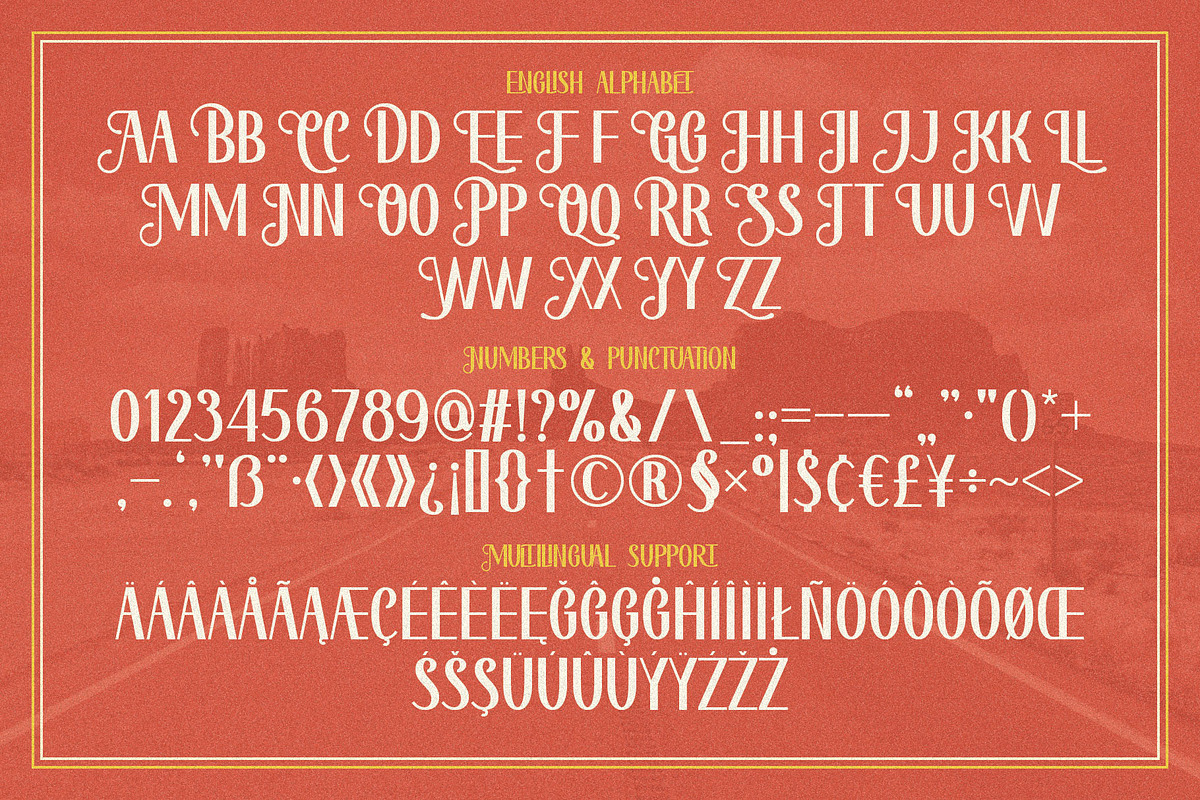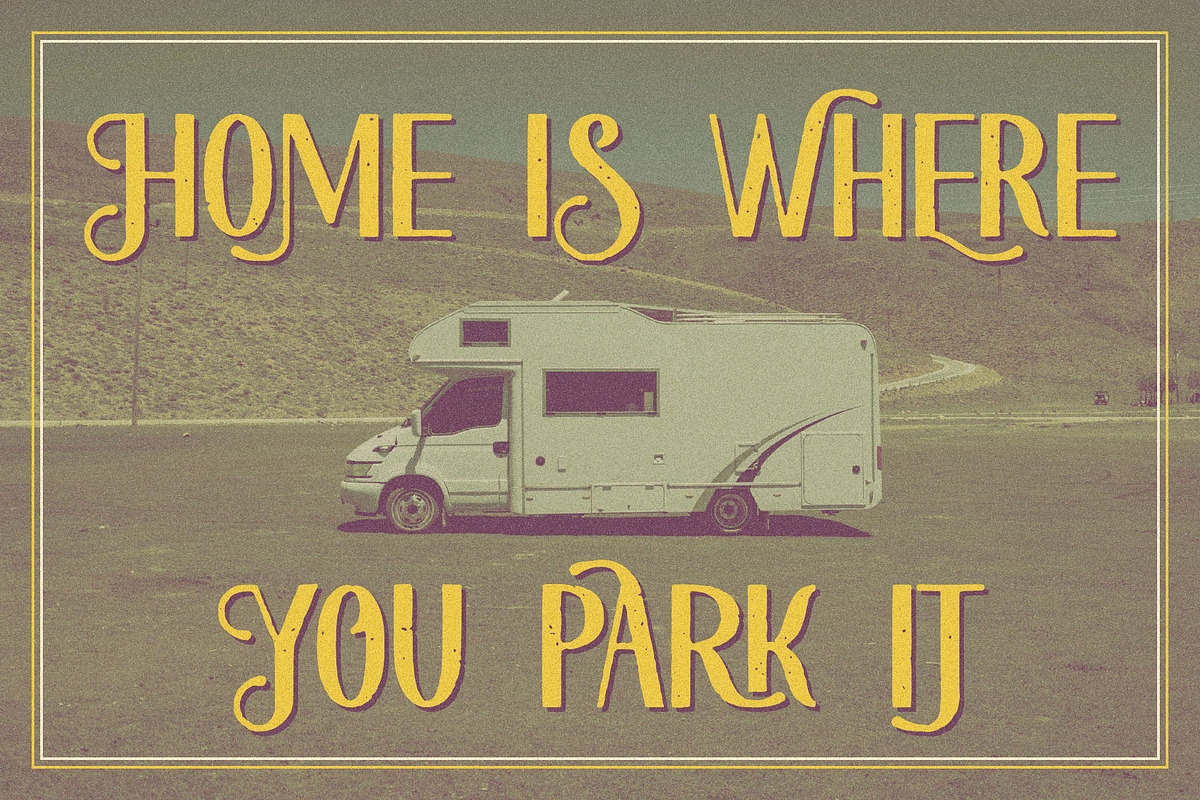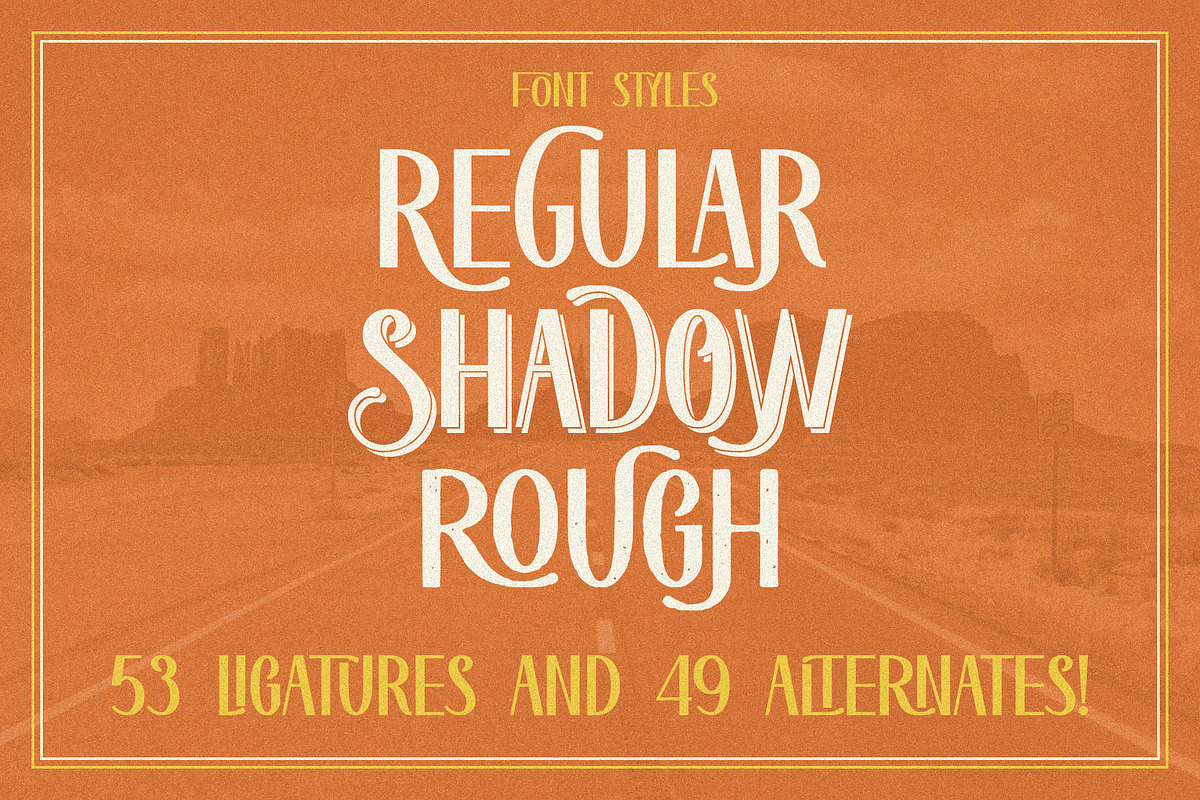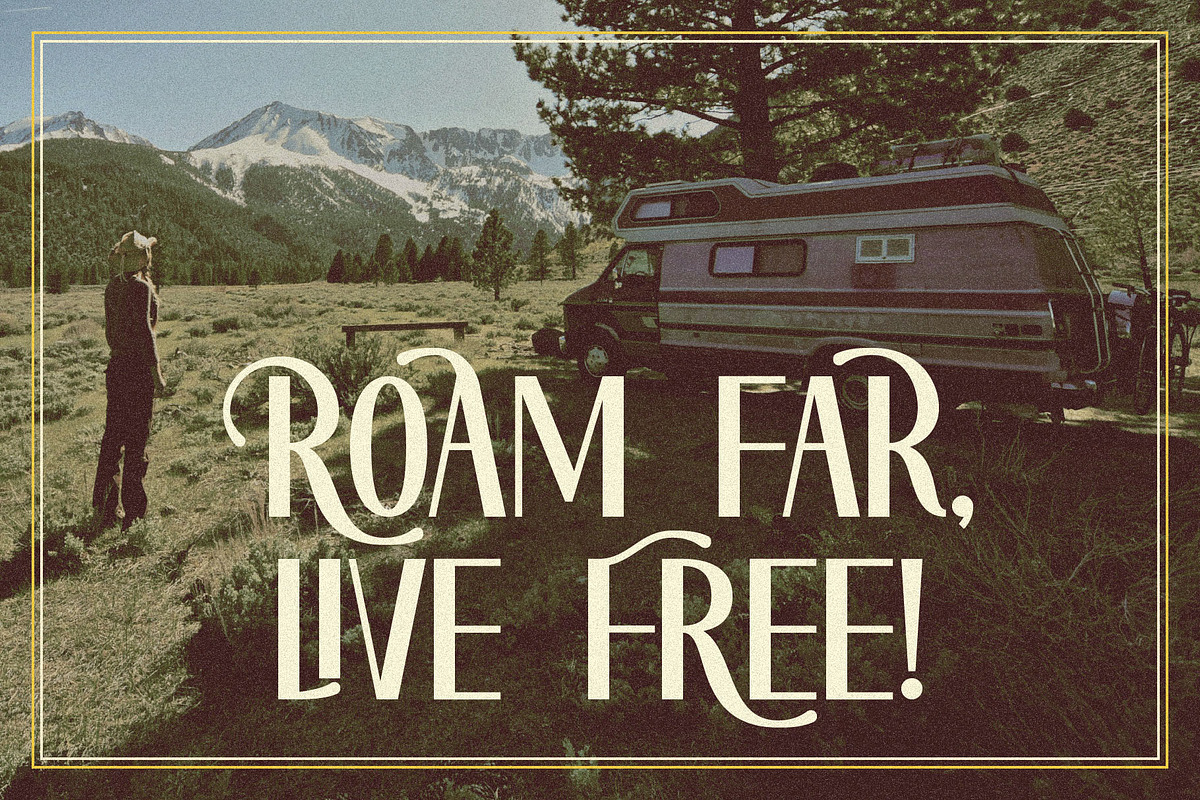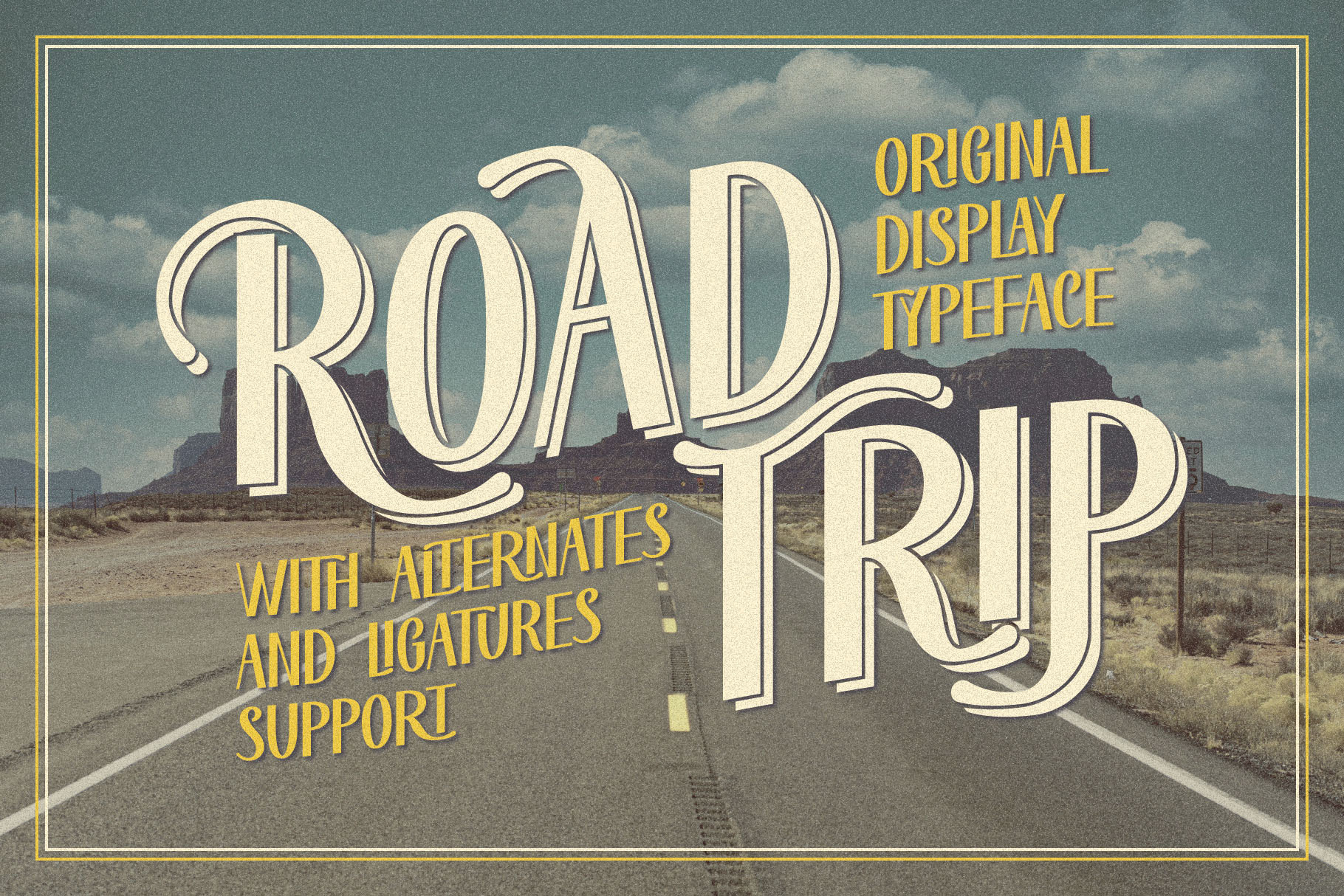
Road Trip - Retro Label Font
Unique, creative, vintage, fantasy, decorative, elegant & retro label sans serif font. Comes with multilingual support, 53 ligatures & 49 alternates + 3 font versions - great for your new logo, monogram or branding project.
- 3 font versions - regular, shadow & rough
- Multilingual support, 53 ligatures & 49 alternates
- Great for retro or vintage style branding projects